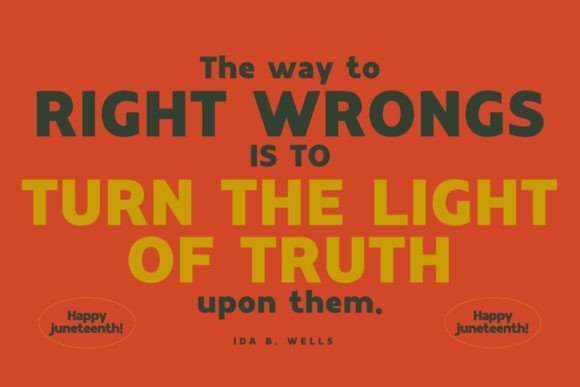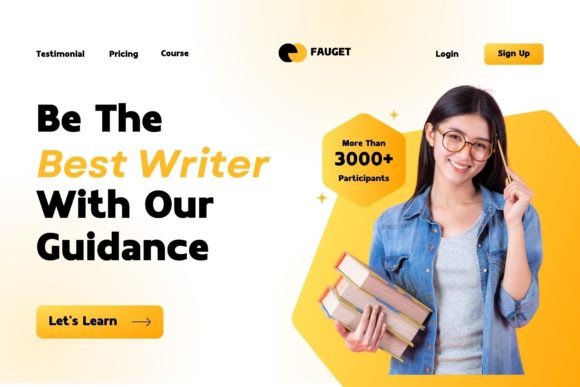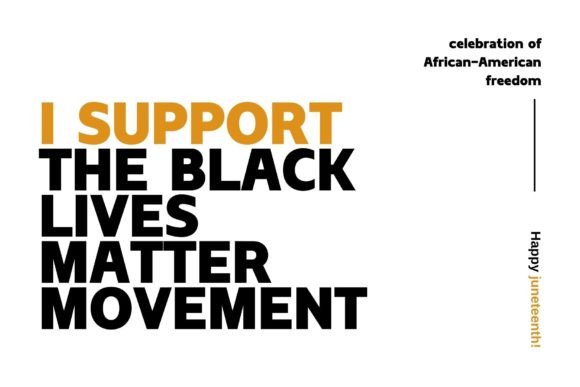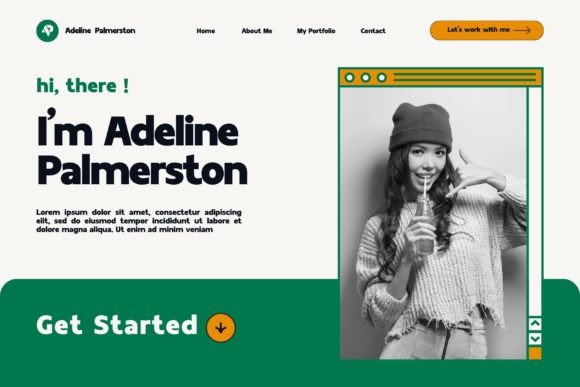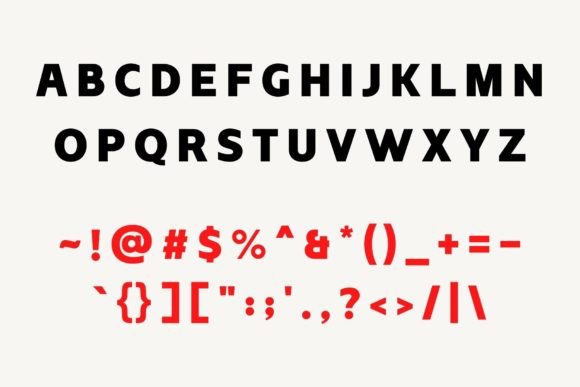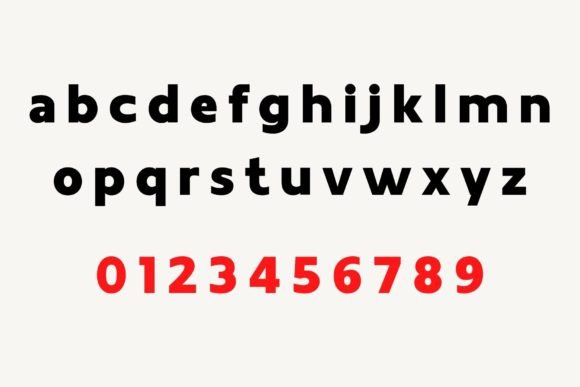
Introduction to Kestila Font
Introducing ‘Kestila’ Font: An exquisite font series designed to elevate your creative projects.
Immerse yourself in the allure of meticulously crafted letters that strike the perfect balance between modernity and elegance Our commitment to precision shines through in the creation of each letter, prioritizing immaculate design to guarantee a flawless typographic expression.
Key Features of Kestila Font